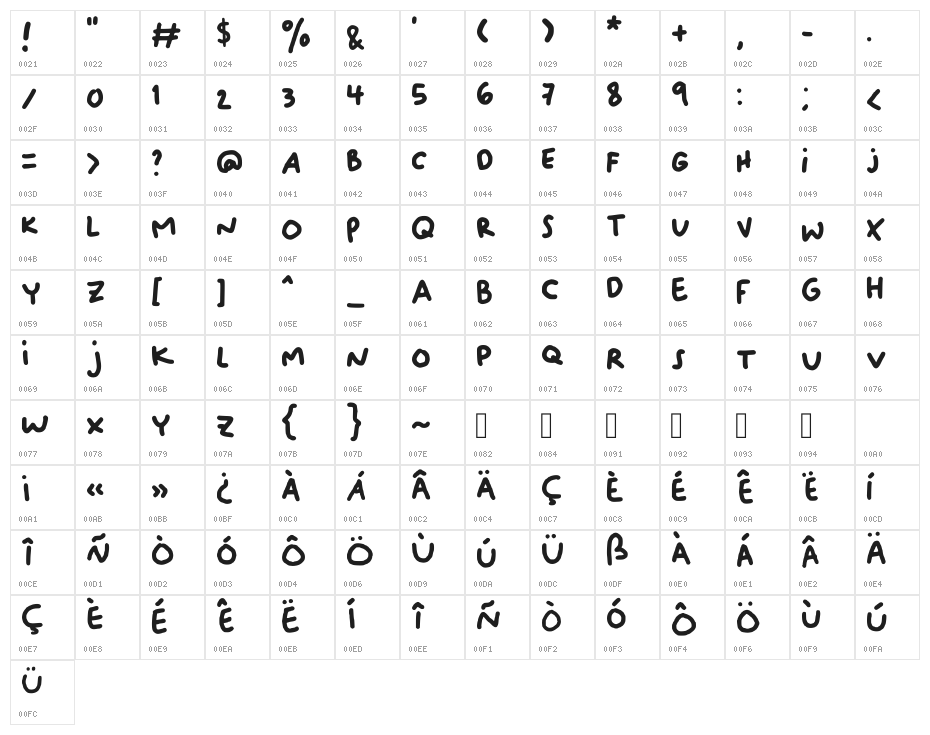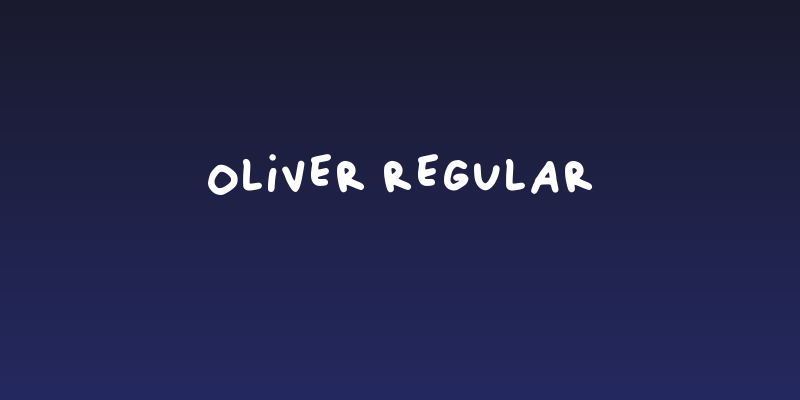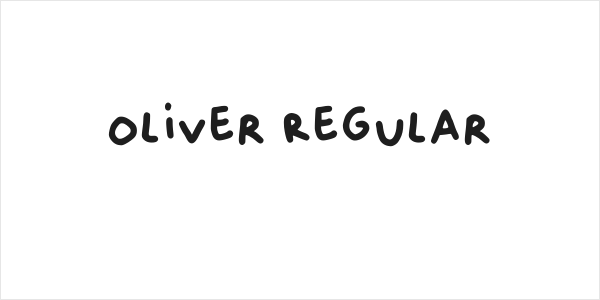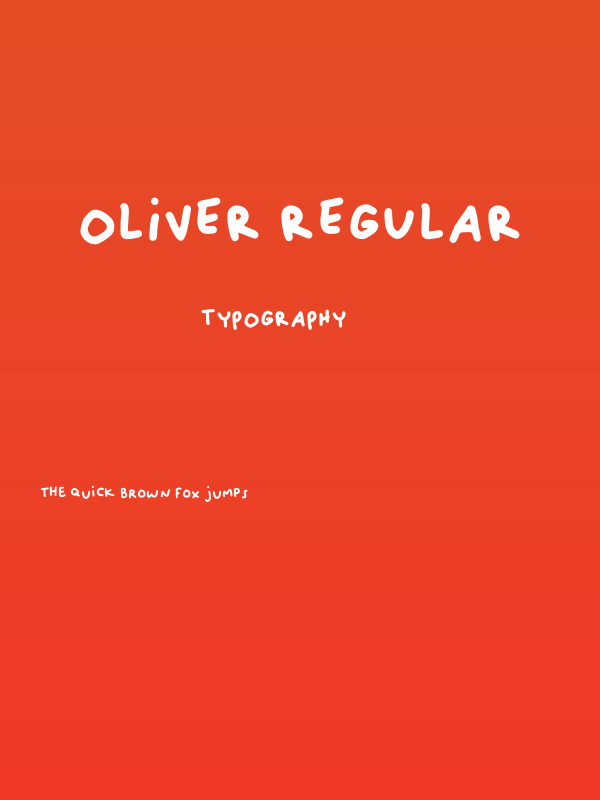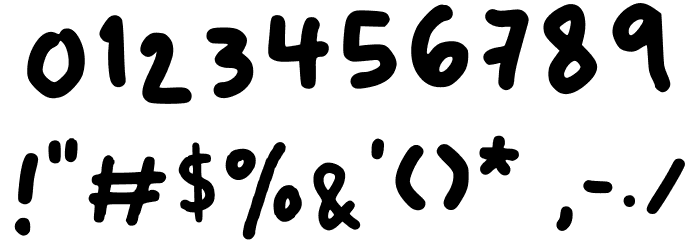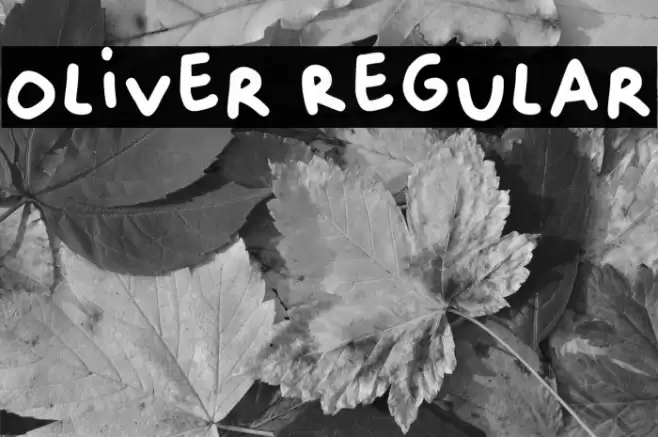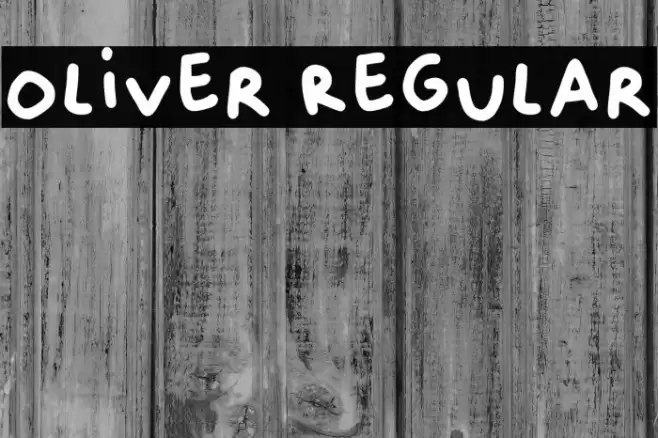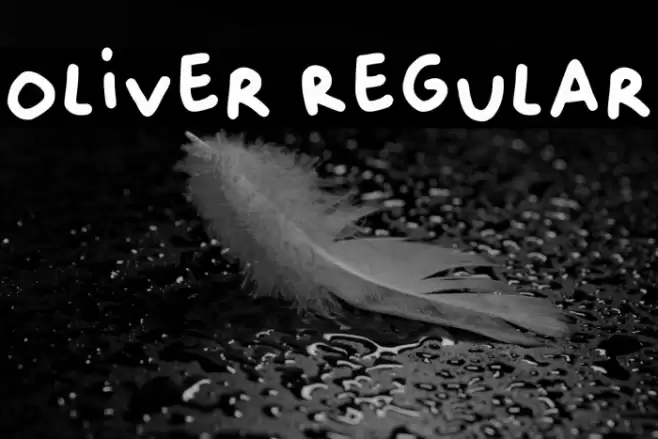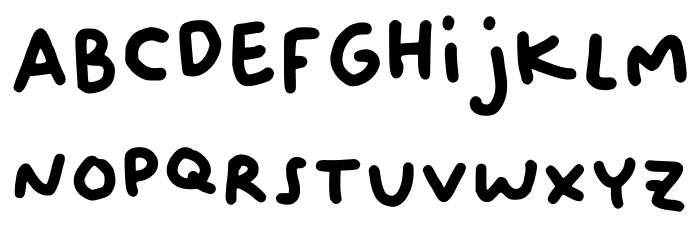
Oliver Regular Font
Oliver Regular Description
This playful and informal font features a handwritten style with bold, rounded strokes that give it a friendly and approachable appearance. The letters are slightly irregular, adding to its casual charm. It has a consistent weight throughout, with no significant contrast between thick and thin strokes. The character spacing is normal, allowing for easy readability while maintaining its whimsical feel. This font is well-suited for projects that require a personal touch or a fun, lighthearted vibe.
| Use Case | Headlines, Informal text, Branding |
| Proposed Projects | Ideal for children's books, greeting cards, casual branding, and social media graphics. |